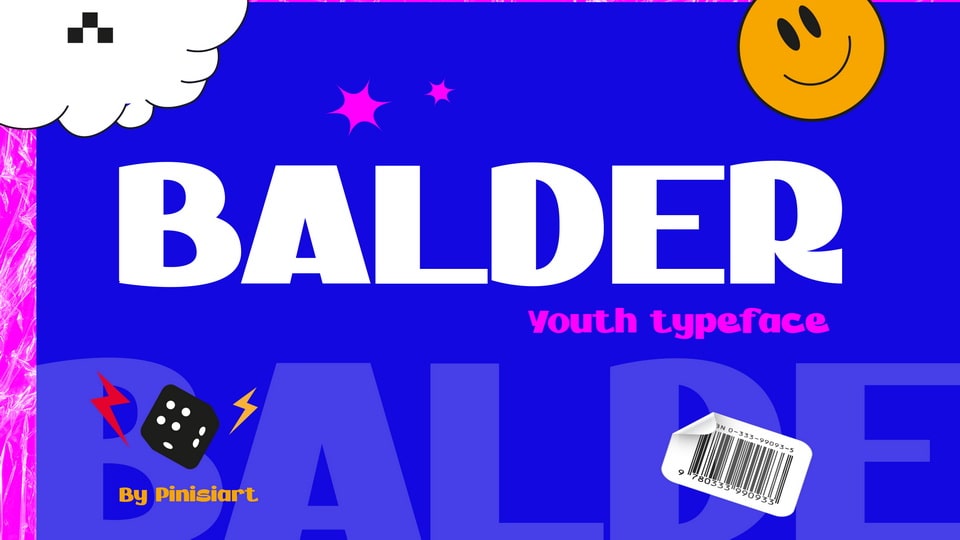
Download Balder font, a typeface that brings a young generation spirit in every word written with it. Bold and funny shapes will make your word get all the attention you need.